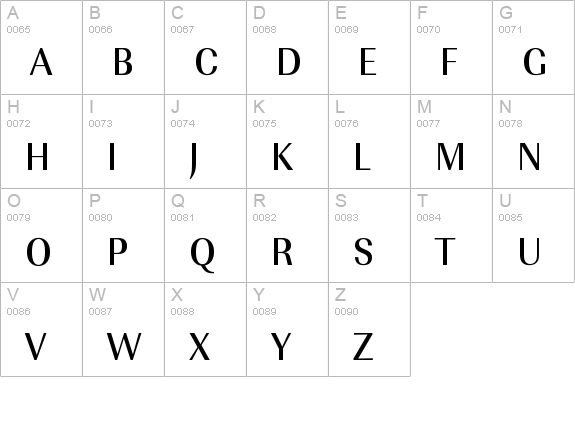
URWImperialTOTMedExtNar Font Details
URWImperialTOTMedExtNar font is a beautiful and elegant typeface that exudes a sense of sophistication and professionalism. With its tall and narrow letterforms, this font is perfect for adding a touch of class to any design project. The clean lines and balanced proportions make it highly versatile and suitable for a wide range of applications. What makes URWImperialTOTMedExtNar font even more appealing is that it is available for free download at FontsMarket.com. This means that you can easily access this high-quality font without any cost, making it a valuable addition to your font collection. Whether you are working on graphic design projects, branding, or any other creative endeavor, URWImperialTOTMedExtNar font is sure to elevate your work with its timeless and refined aesthetic.